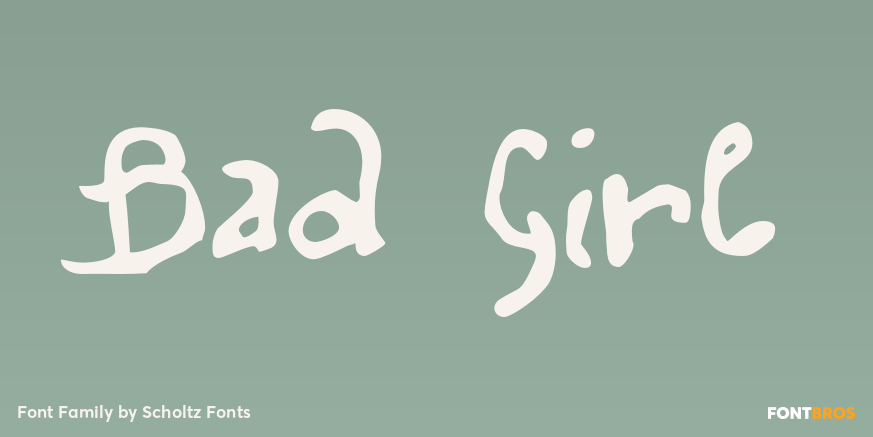
HomeFont BrosBad Girl Font Bros Bad Girl FacebookXPinterestWhatsApp 1 of 1 About Bad Girl was designed to appeal to the young consumer and the young-at-heart. While clearly feminine, it manages to combine a charming na  DOWNLOAD NOW People also explored Aromatic Font Andarista Font Sans Ferios Font Beauty Girl Honeymoon Font Bookochi Font Beautiful Harmony Font Love Font Focus Font 316 0 TagsBad Girl Font Previous articleTobuNext articleConceal LEAVE A REPLY Cancel reply Comment: Please enter your comment! Name:* Please enter your name here Email:* You have entered an incorrect email address! Please enter your email address here Website: Save my name, email, and website in this browser for the next time I comment. Personal Use Free Thruster Personal Use Free Read more about this font Mustica Personal Use Free Read more about this font Amelline Personal Use Free Read more about this font Wintersoul Personal Use Free Read more about this font BLOG Using Fonts in Digital Marketing: Tips to Strengthen Your Brand Identity In the realm of digital marketing, every visual element plays a crucial role in shaping a brand's identity, and fonts are no exception. The... Free Fonts Risk: Why Free Fonts Can Be Dangerous for Designers How to Cut Any Font on Cricut: Convert a Font to SVG (Free) Elegant Wedding Invitation Fonts – Handwritten & Script Fonts